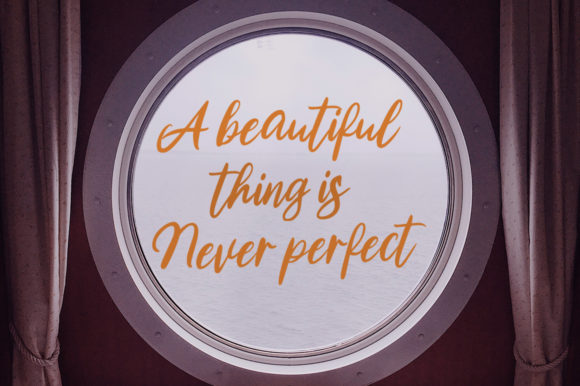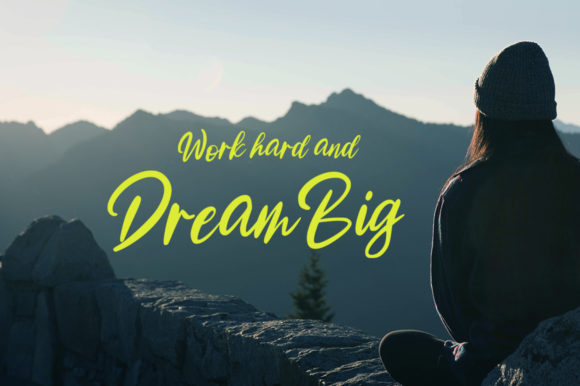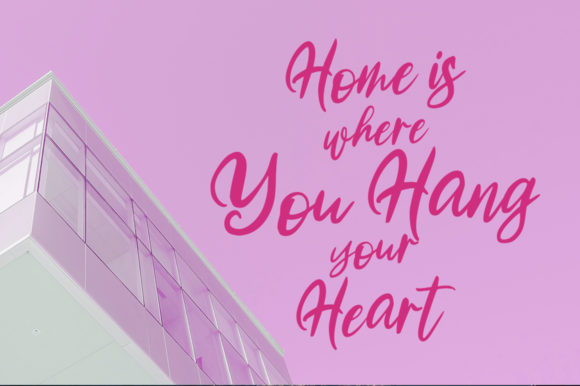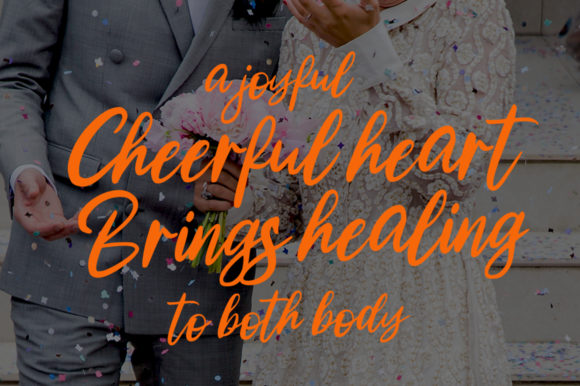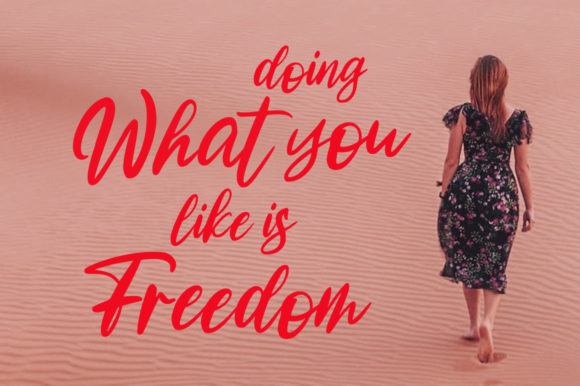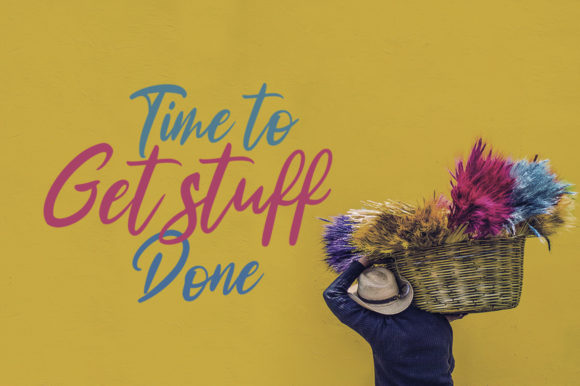
Fellya Font: Elevate Your Designs with Elegance and Magic
In the world of typography, a font can make or break a design. For those seeking a touch of elegance and magic, the Fellya Font is an exceptional choice. This beautifully crafted handwritten font is designed to transform your creative ideas into stunning works of art. Whether you’re a designer, crafter, or social media enthusiast, Fellya Font is sure to captivate your audience and elevate your visual storytelling.
The Charm of Fellya Font
Fellya Font is a meticulously designed handwritten font that exudes elegance and sophistication. Its unique, flowing script is perfect for a wide range of creative projects, from Instagram posts and stories to DIY crafts and professional branding. With Fellya Font, you can add a personal touch to your designs, making them stand out in a crowded digital landscape.
Key Features of Fellya Font
- Magical Handwritten Style: Fellya Font boasts a whimsical, handwritten style that adds a touch of magic to your designs.
- Elegant and Sophisticated: The font’s elegant and sophisticated design makes it perfect for high-end branding, packaging, and marketing materials.
- PUA Encoded: Fellya Font is PUA (Private Use Area) encoded, allowing you to access all glyphs and swashes with ease. This feature makes it simple to customize your designs and explore new creative possibilities.
- Versatile: Fellya Font is suitable for a wide range of applications, including Instagram posts, calligraphy scripts, DIY projects, and professional branding.
Use Fellya Font for Instagram and Social Media
In today’s digital age, social media platforms like Instagram have become essential channels for creative expression and self-promotion. With Fellya Font, you can elevate your Instagram posts and stories, making them more visually appealing and engaging. Use Fellya Font to:
- Create stunning quotes and typographic art
- Design eye-catching Instagram stories and posts
- Develop a consistent brand aesthetic
- Stand out in a crowded feed
Unlock Endless Creative Possibilities with Fellya Font
Fellya Font is not just a font – it’s a creative tool that unlocks endless possibilities for designers, crafters, and social media enthusiasts. With its PUA encoding, you can access a wide range of glyphs and swashes, allowing you to:
- Experiment with custom typography
- Create unique and intricate designs
- Develop a distinctive brand voice
- Push the boundaries of creative expression
Why Choose Fellya Font?
With so many fonts available, why choose Fellya Font? Here are just a few reasons:
- Unique and Exclusive: Fellya Font offers a distinctive and exclusive design that sets it apart from other fonts.
- Ease of Use: The font’s PUA encoding makes it easy to access and use glyphs and swashes, even for those without extensive design experience.
- High-Quality Design: Fellya Font is meticulously crafted to ensure high-quality design and exceptional readability.
- Versatility: Fellya Font is suitable for a wide range of applications, from digital design to print materials.
In conclusion, Fellya Font is a magical handwritten font that offers a touch of elegance and sophistication to your designs. With its PUA encoding, versatile design, and high-quality craftsmanship, Fellya Font is an exceptional choice for designers, crafters, and social media enthusiasts. Unlock endless creative possibilities with Fellya Font and elevate your visual storytelling to new heights.